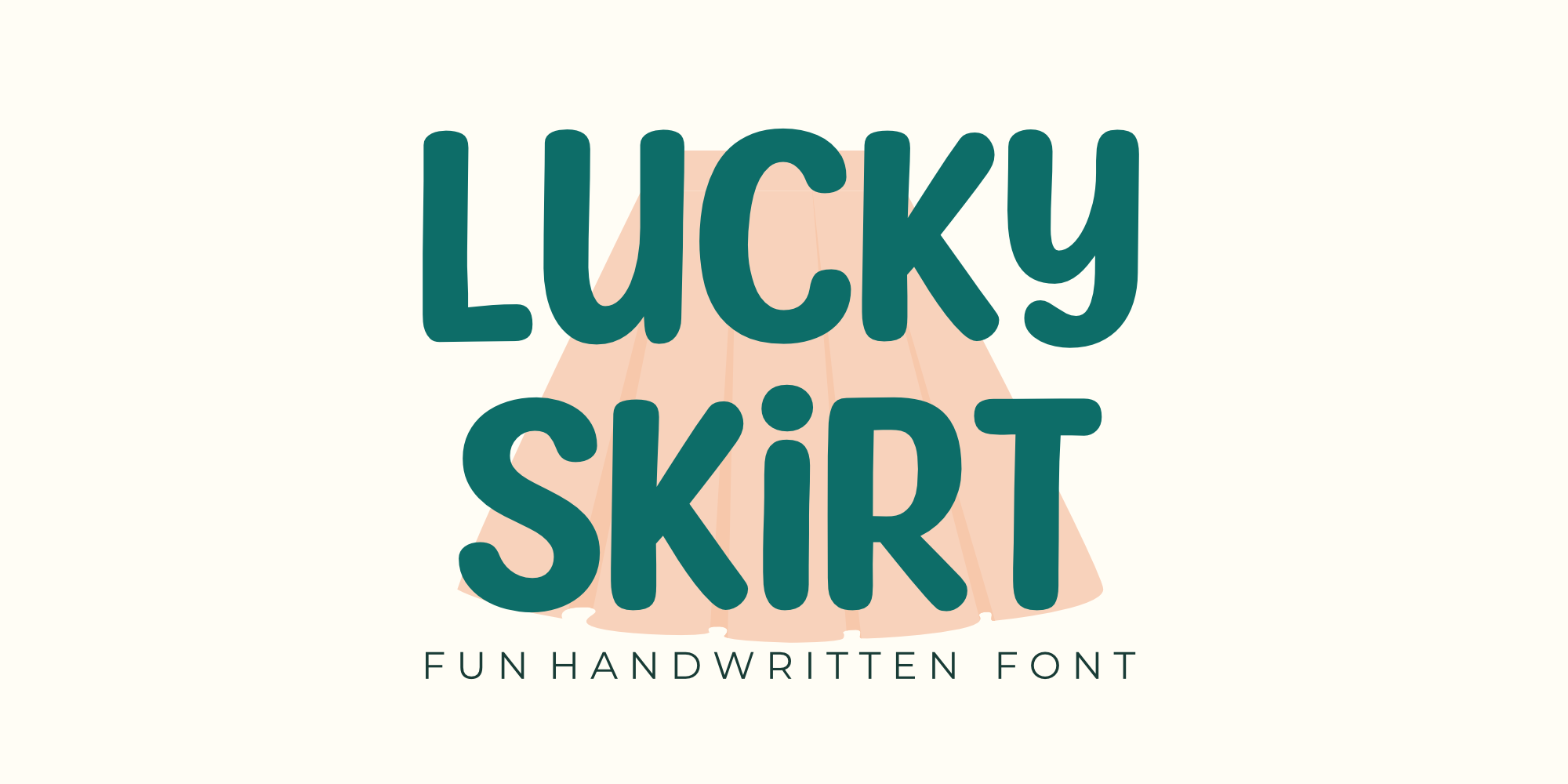
Lucky Skirt Font is perfect for fashion magazines, boutique branding, women's clothing advertisements, beauty product packaging, lifestyle blogs, social media graphics, feminine logo designs, and wedding invitations. This stylish typeface excels in fashion industry applications, beauty campaigns, and any project requiring a chic, trendy aesthetic that appeals to modern women.
What makes Lucky Skirt Font exciting is its playful yet sophisticated character that perfectly captures contemporary feminine style and fashion-forward thinking. The font features elegantly curved letterforms with distinctive flair that evokes confidence and style, making it ideal for brands targeting fashion-conscious audiences. Its unique personality and modern appeal ensure instant recognition and memorable brand communication across digital and print media.
Lucky Skirt Font family includes multiple weights and styles: Regular, Bold, Light, Medium, Italic variations, and decorative alternates. Each family member maintains the distinctive feminine charm while offering versatility for different design applications, from delicate script elements to bold headline treatments that command attention.
Whether you're designing a fashion website or creating promotional materials for a women's boutique, Lucky Skirt Font Free Download provides the perfect typography solution for contemporary feminine branding. This font transforms ordinary text into stylish visual statements that communicate elegance and modern sophistication. Fashion designers and marketing professionals choose this typeface for its ability to convey trendy, fashionable messaging through beautifully crafted letterforms that resonate with style-conscious consumers.